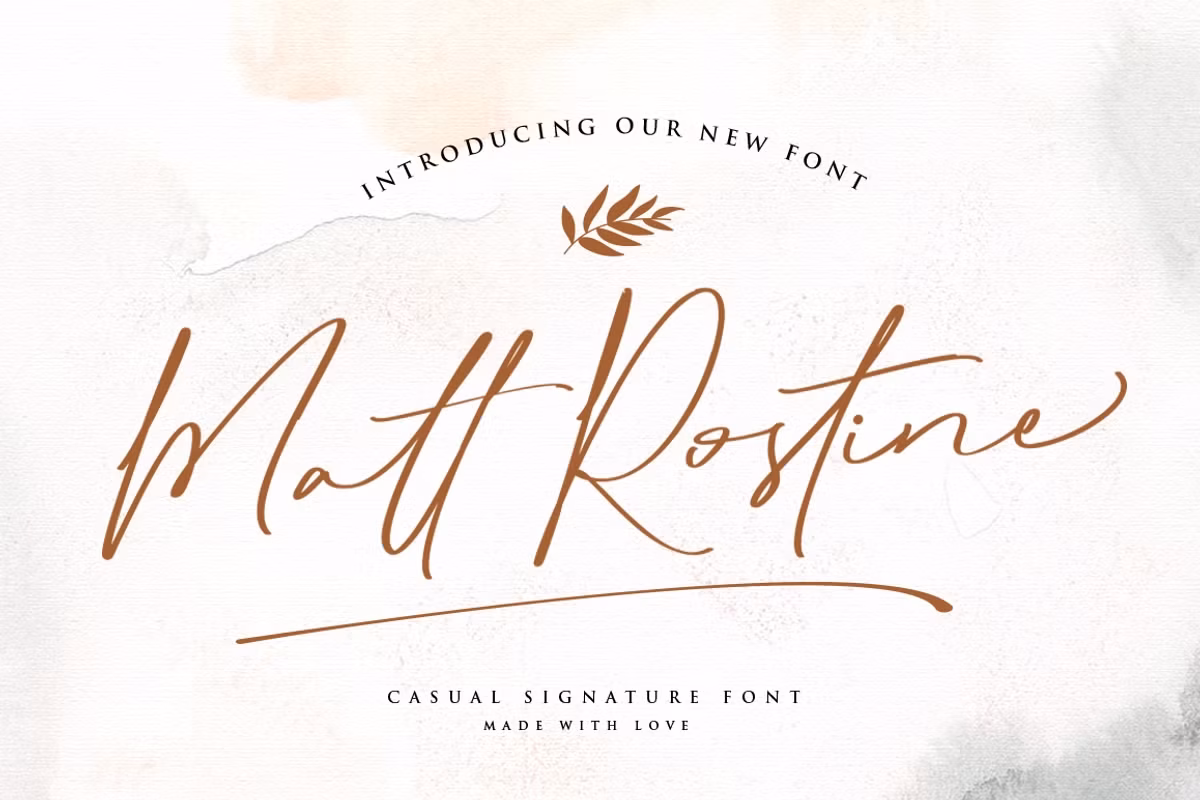
Matt Rostine - Chic Signature Font Free Download
Matt Rostine - Chic Signature Font Free Download is a stylish handwritten script designed to mimic the elegance of a modern personal signature. With smooth strokes, delicate curves, and a touch of flair, this font is perfect for branding, personal logos, business cards, wedding invitations, and high-end product packaging. It brings a sophisticated, yet approachable vibe to any design.
Whether you're aiming to create a luxurious identity or add a handwritten touch to your social media posts, Matt Rostine - Chic Signature Font Free Download delivers class and authenticity. The fluid letterforms enhance your work with a sense of movement and modern charm, making it ideal for fashion, lifestyle, and boutique projects.